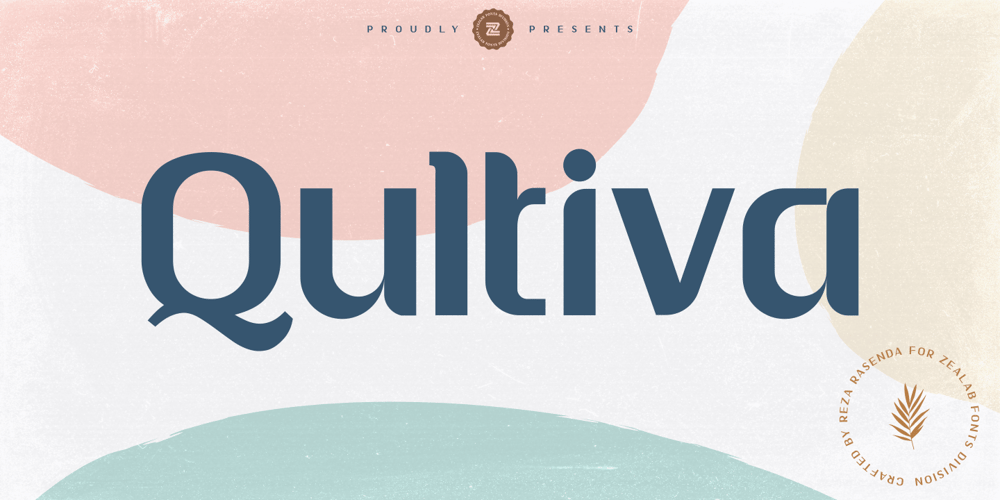
Qultiva Font Family was designed by Reza Rasenda and published by Zealab Fonts Division. Qultiva contains 1 styles and family package options. Qultiva features a unique typeface stylistic set which when use to some of the uppercase, lowercase characters and multilingual as well.Qultiva has been crafted from scratch. It includes a structural logic for balance and addition value. It is perfect to create unique logos, beautiful wedding invitations, use it as an elegant solution for your next magazine layout, or choose Qultiva for any graphics that require a sleek look with an elegant flair.